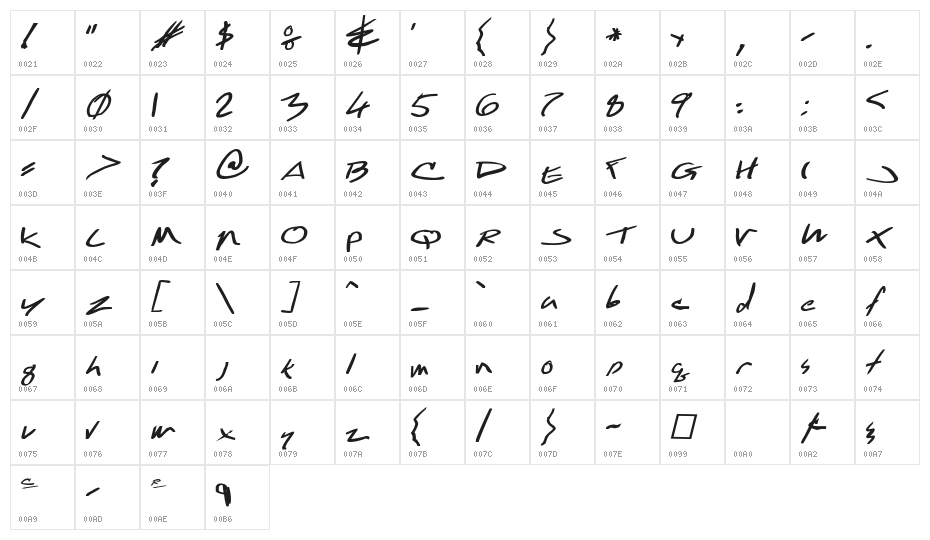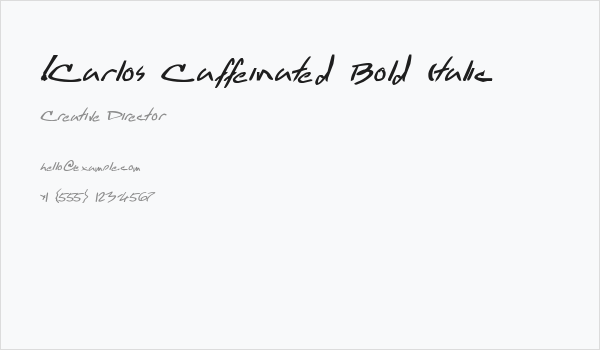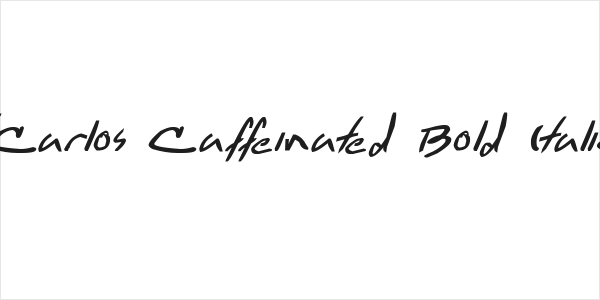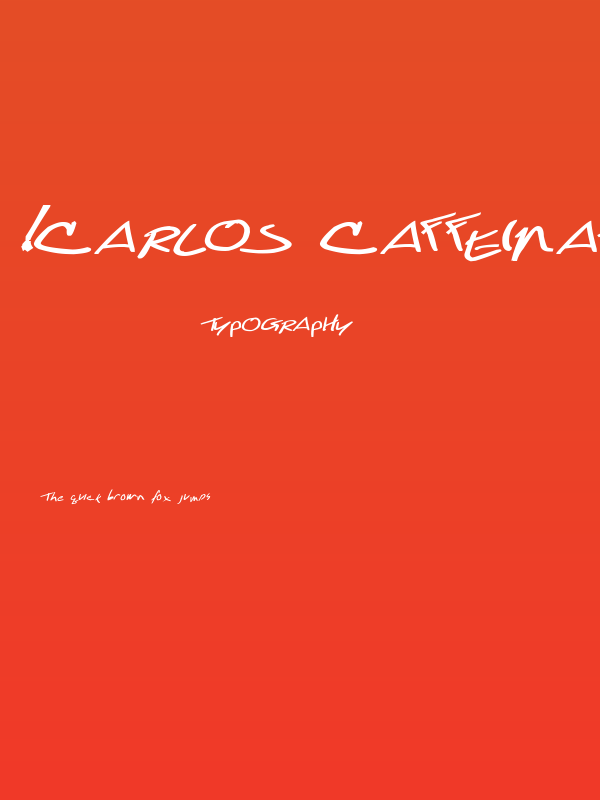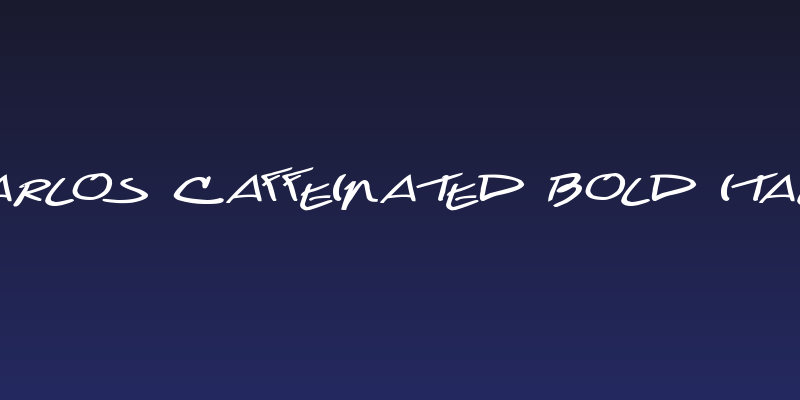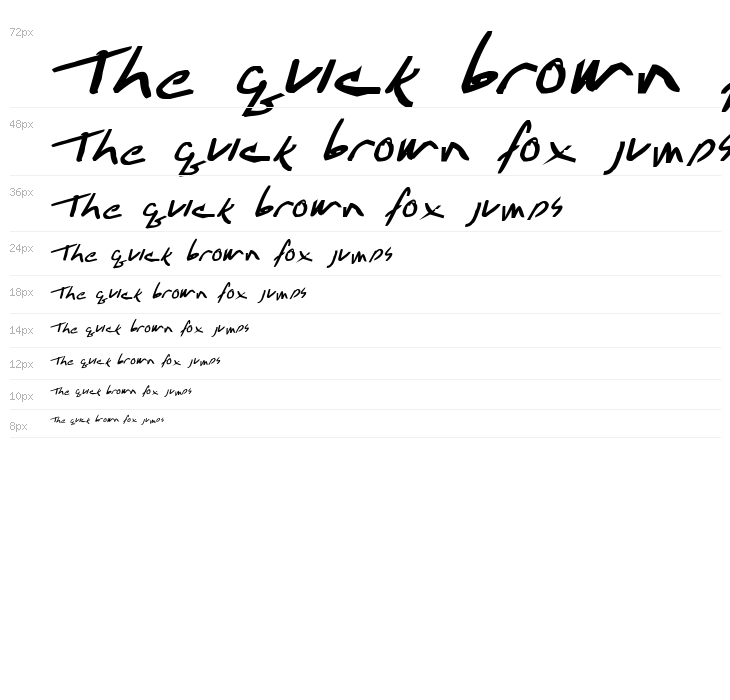
!Carlos Caffeinated Bold Italic Font
!Carlos Caffeinated Bold Italic Description
This font exudes a dynamic and energetic style, characterized by its bold and italicized strokes. The letters are crafted with a handwritten flair, giving them a personal and informal touch. The uppercase and lowercase letters maintain a consistent flow, with a slight slant that enhances the italic effect. Numbers and special characters are equally expressive, maintaining the font's overall lively and spontaneous appearance. The strokes vary in thickness, providing a medium contrast that adds to the font's visual interest. This font is ideal for projects that require a touch of personality and movement.